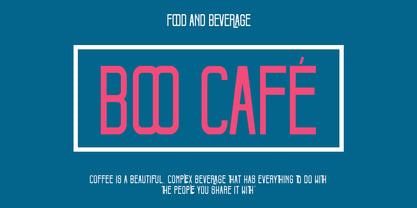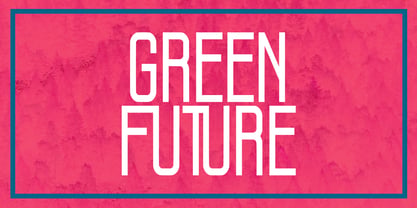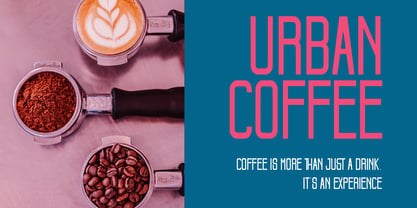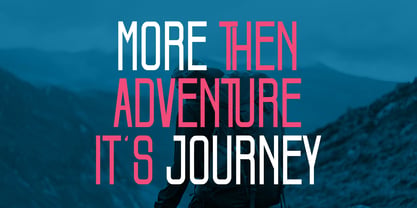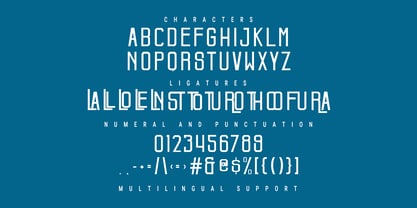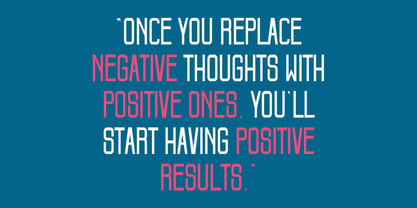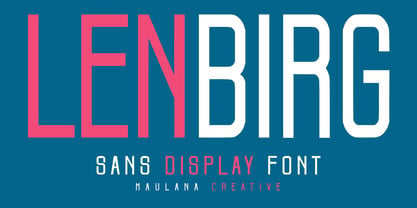
MC Lenbirg
by Maulana Creative
The MC Lenbirg Font Family was designed by Gilang Maulana and published by Maulana Creative. MC Lenbirg contains 1 styles. More about this family
Lenbirg is a modern sans serif font. With sharp stroke, fun character with a bit of ligatures. To give you an extra creative work. Lenbirg font support multilingual more than 100+ language. This font is good for logo design, Social media, Movie Titles, Books Titles, a short text even a long text letter and good for your secondary text font with sans or serif. Make a stunning work with Lenbirg font.
Designers: Gilang Maulana
Foundry: Maulana Creative